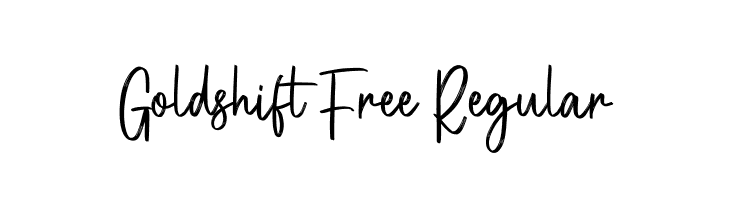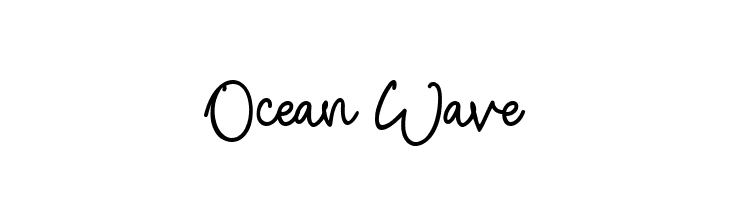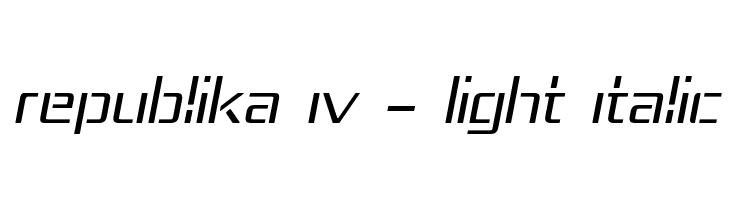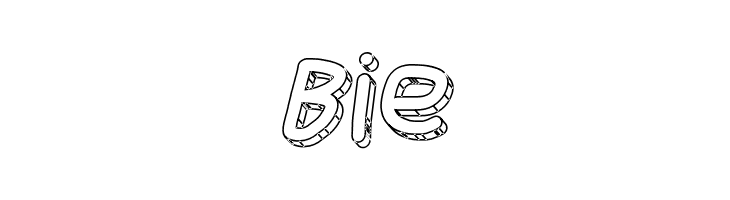
A playful, handwritten font with tall, narrow letterforms and a casual, modern style.
A bold, 3D italic font with a futuristic and dynamic style.
A futuristic, italicized font with sharp angles and a sleek, modern design.
A playful, casual handwritten font with flowing strokes and a friendly appearance.
A whimsical and abstract font featuring unique creature-like designs.
A bold, geometric font with a distinctive horizontal striped pattern.
A bold serif font with strong strokes and pronounced serifs, offering a classic yet modern look.
A clean, bold font perfect for labeling and organizing.
A playful, bold font with rounded edges and a hand-drawn look.